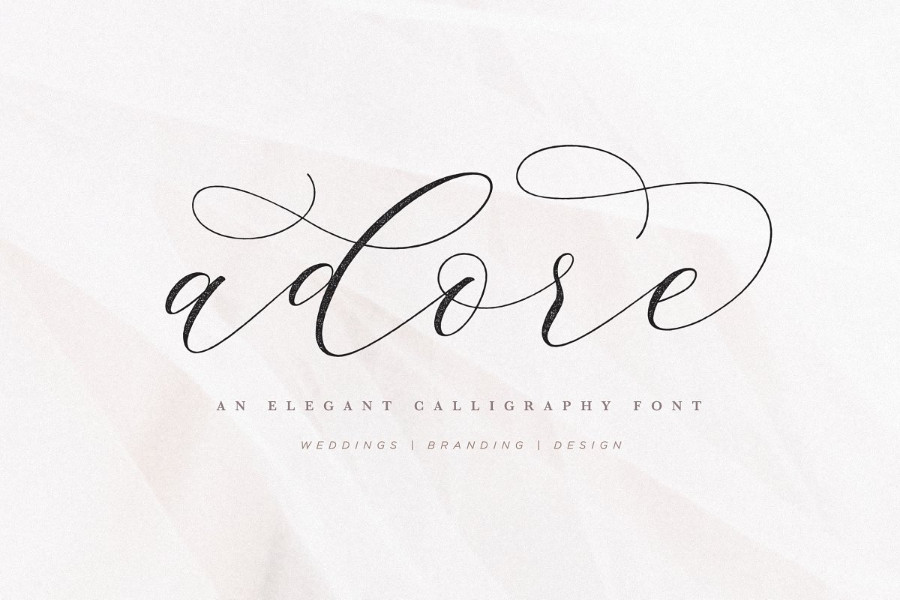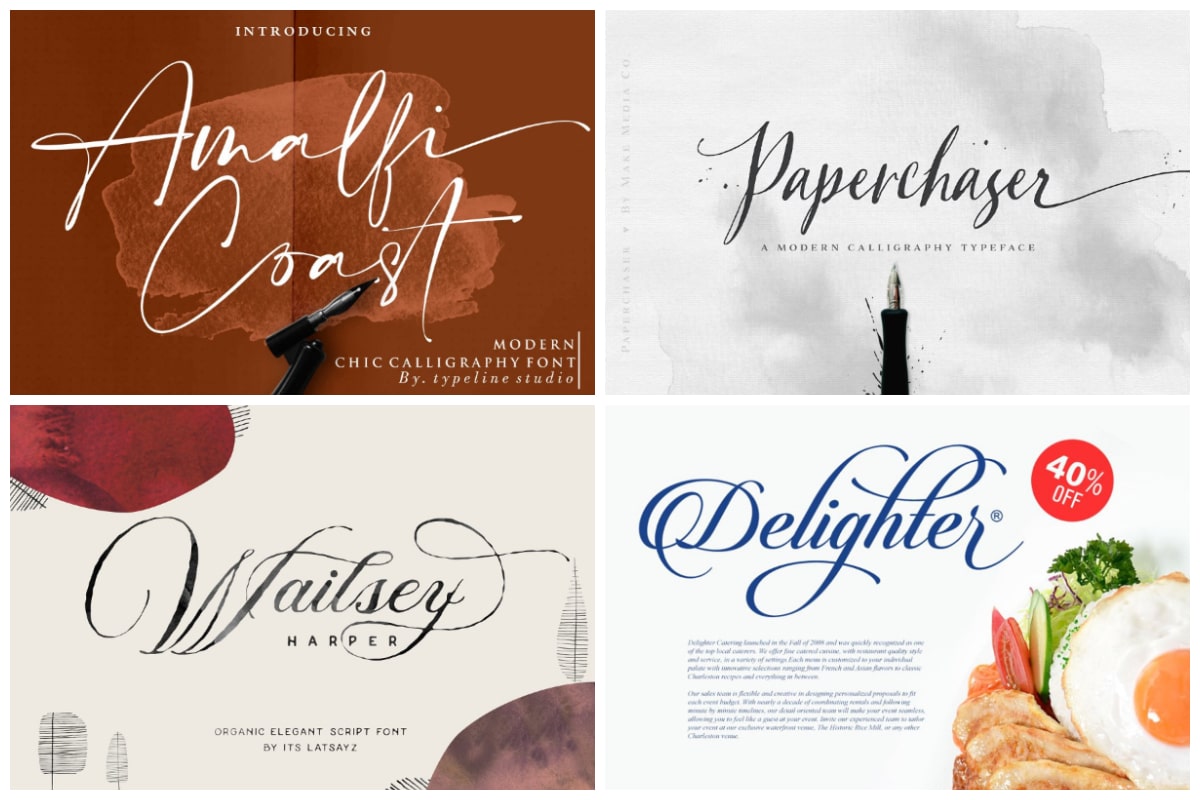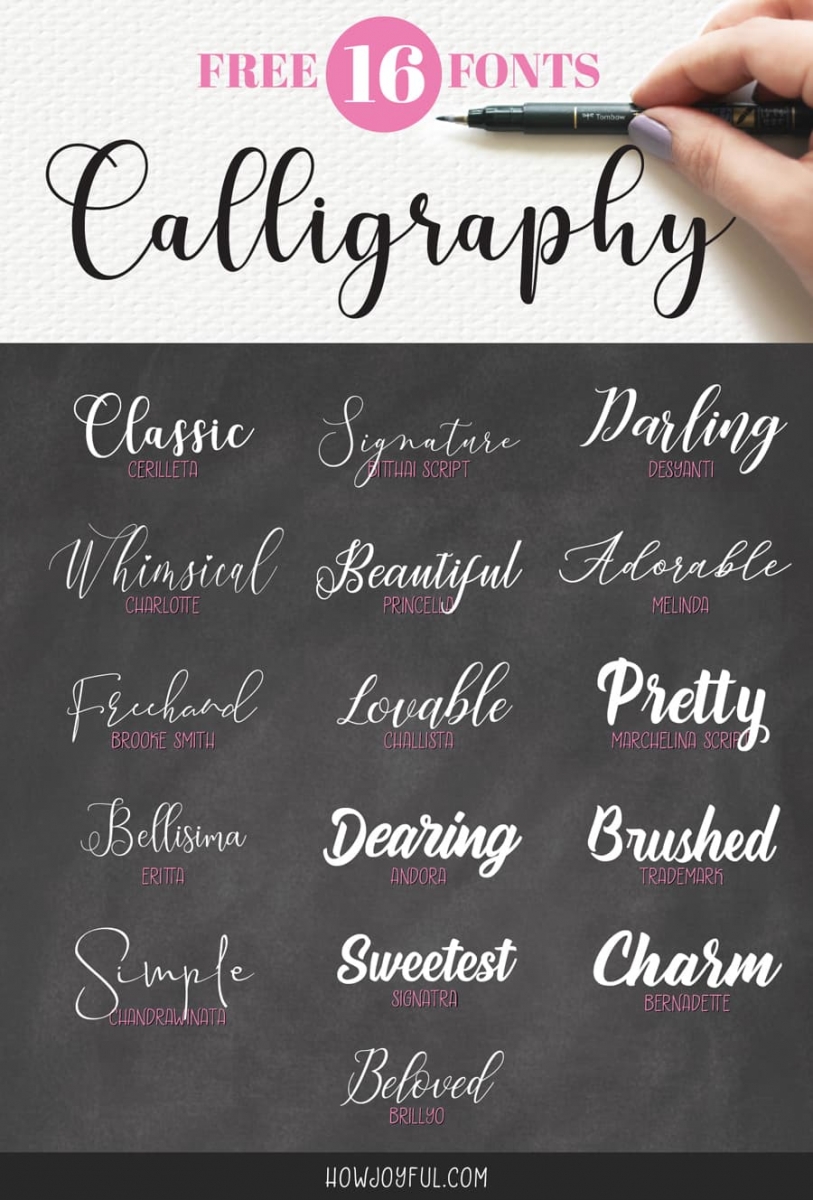
Lucida Calligraphy Full Alphabet And Numbers Set 6 Tall 8mm.
Calligraphy fonts a to z capital letters and small pdf. It usually involves a nibbed pen or brush. Calligraphy Charts in PDF. Spacing letters is the main theme in calligraphy fonts.
Calligraphy is an artistic writing style where the pressure is varied to create thick and thin lines all in a single stroke. Available as a printable PDF template. Cursive Writing Calligraphy A To Z Capital Letters For Beginners.
Calligraphy fonts a to z capital letters for beginners. Cursive writing a to z improve your handwriting small capital letters for kids and beginners. Cursive letters have joins parts of the character that links them together with other characters enabling a quicker writing speed.
In this lesson on mastering calligraphy were going to learn a very familiar alphabet called cursive script. You can customize your experience with live font previews. Capital a to z in cursive writing.
Font Family A font family includes a number of related font faces such as a bold version condensed italic light etc. This chart contains 26 A to Z capital alphabet letters to print in PDF. Calligraphy is an ancient writing technique using flat edged pens to create artistic lettering using thick and thin lines depending on the direction of the stroke.
Uppercase Calligraphy in PDF. The writing is readable but is usually extravagant and embellished with flourishes. A small stroke at the beginning or end of a main stroke.
A serif can be made in many ways and often gives a particular alphabet its characteristic look. We have 98 free Fancy Calligraphy Fonts to offer for direct downloading 1001 Fonts is your favorite site for free fonts since 2001. The main sub-styles are traditional calligraphy and modern.
Print this Uppercase themed PDF formated Calligraphy chart below. These uppercase alphabets can be used for many types of projects and scrapbooking. After selecting a pattern you can specify.
Calligraphy fonts a to z capital letters free download Some objects that start with this letter are zipper zither and zeppelin. Sunday June 14 2020. Here is a list of different.
Elegant Calligraphy Uppercase Lowercase Letter Stencils A Z 1 4. For more ideas see letter stencils stencil maker banner maker and calligraphy generator. Handwritten Brush Pen Letters Black Vector Alphabet On White.
Cursive writing complete a z uppercase lowercase with letterschool. All fonts are categorized and can be saved for quick reference and comparison. 1001 Free Fonts offers the best selection of Calligraphy Fonts for Windows and Macintosh.
This can be a letter number or a symbol such as a dollar sign or punctuation.